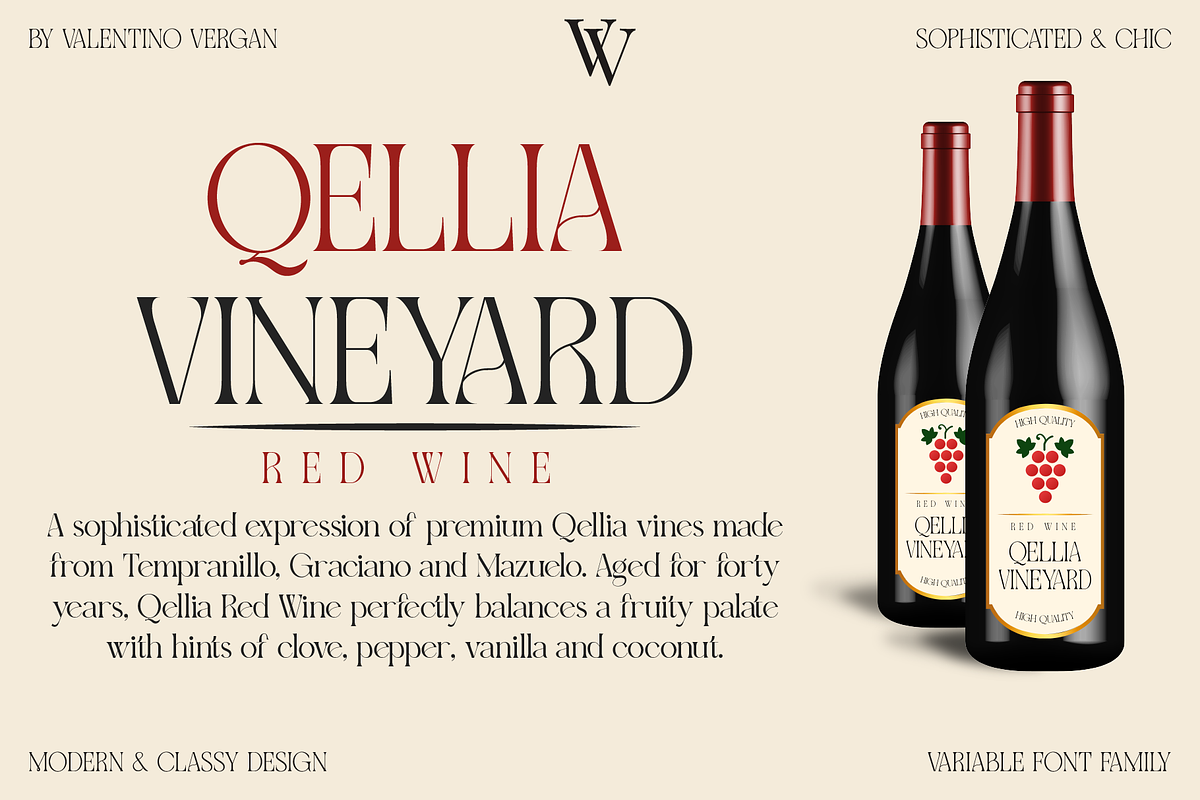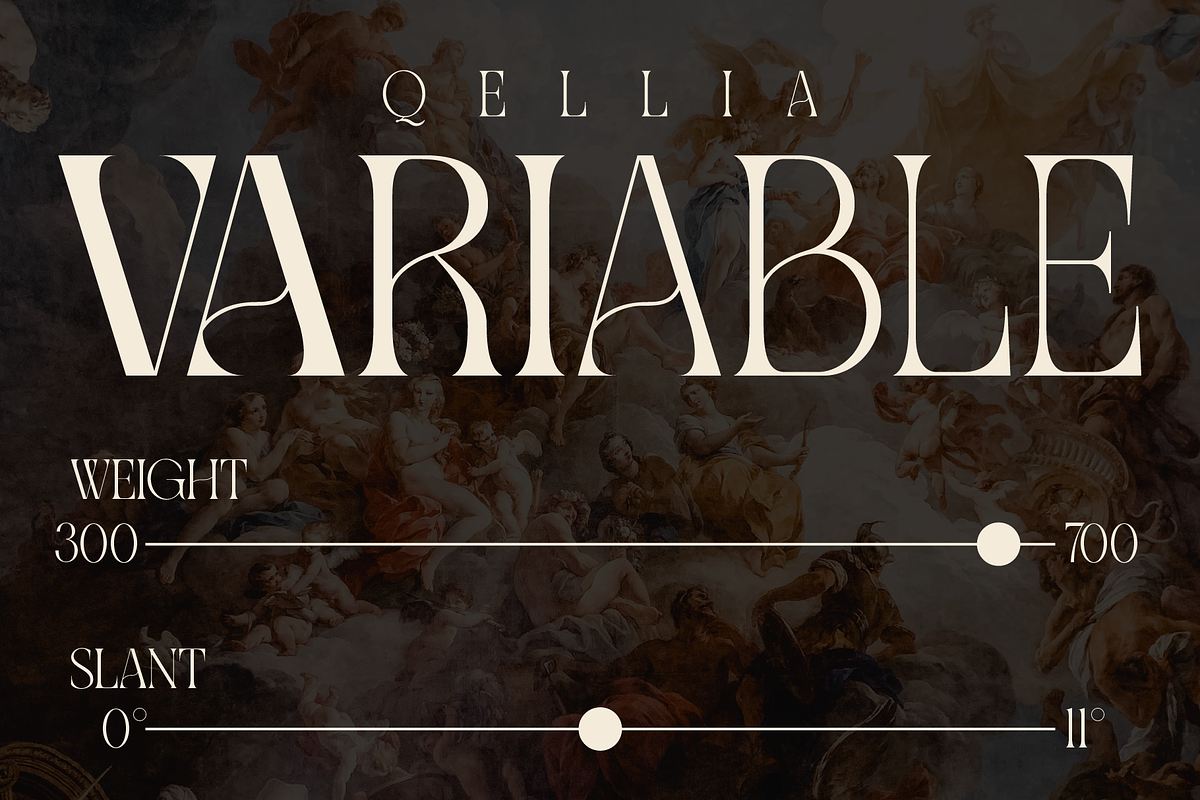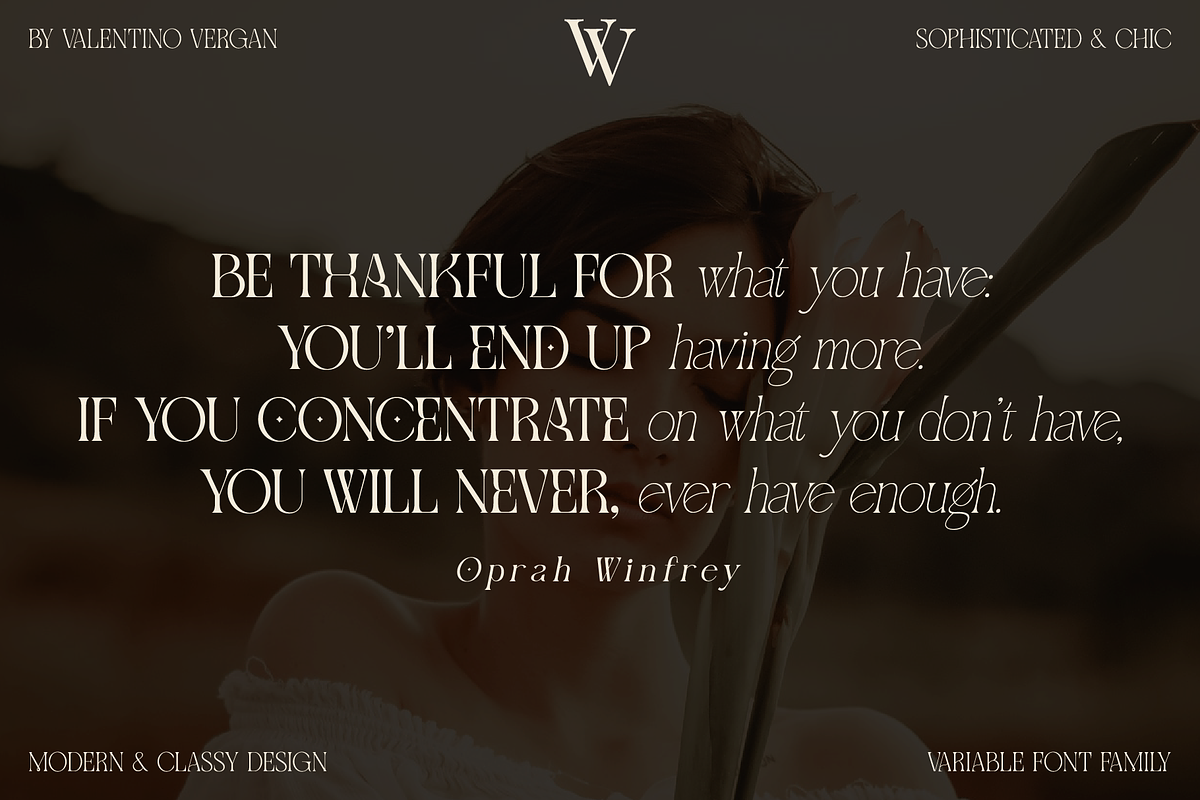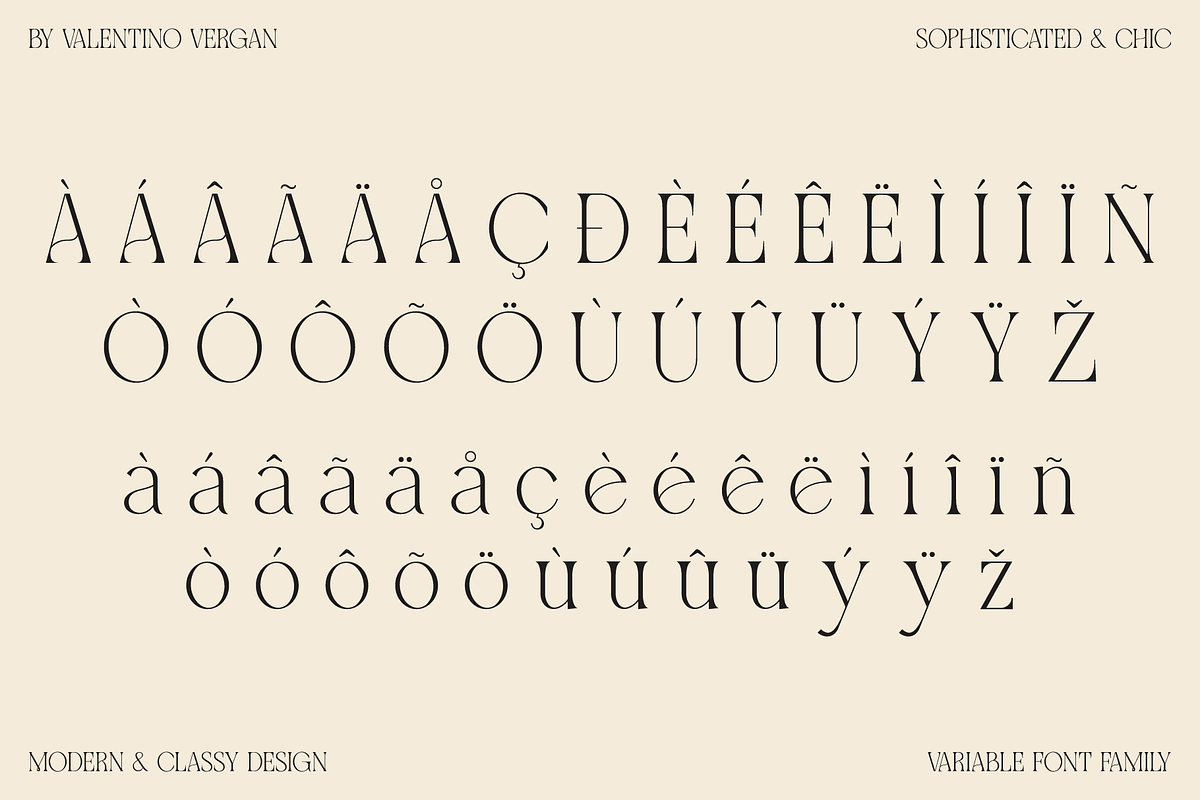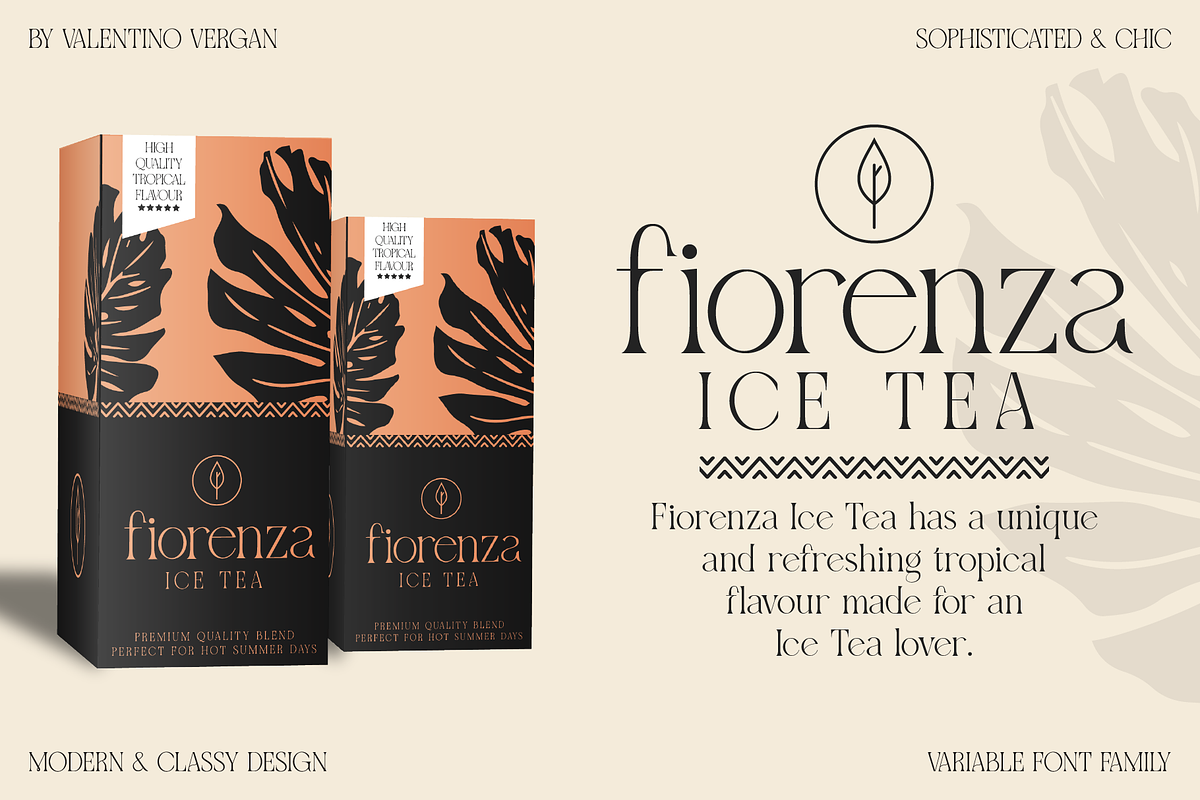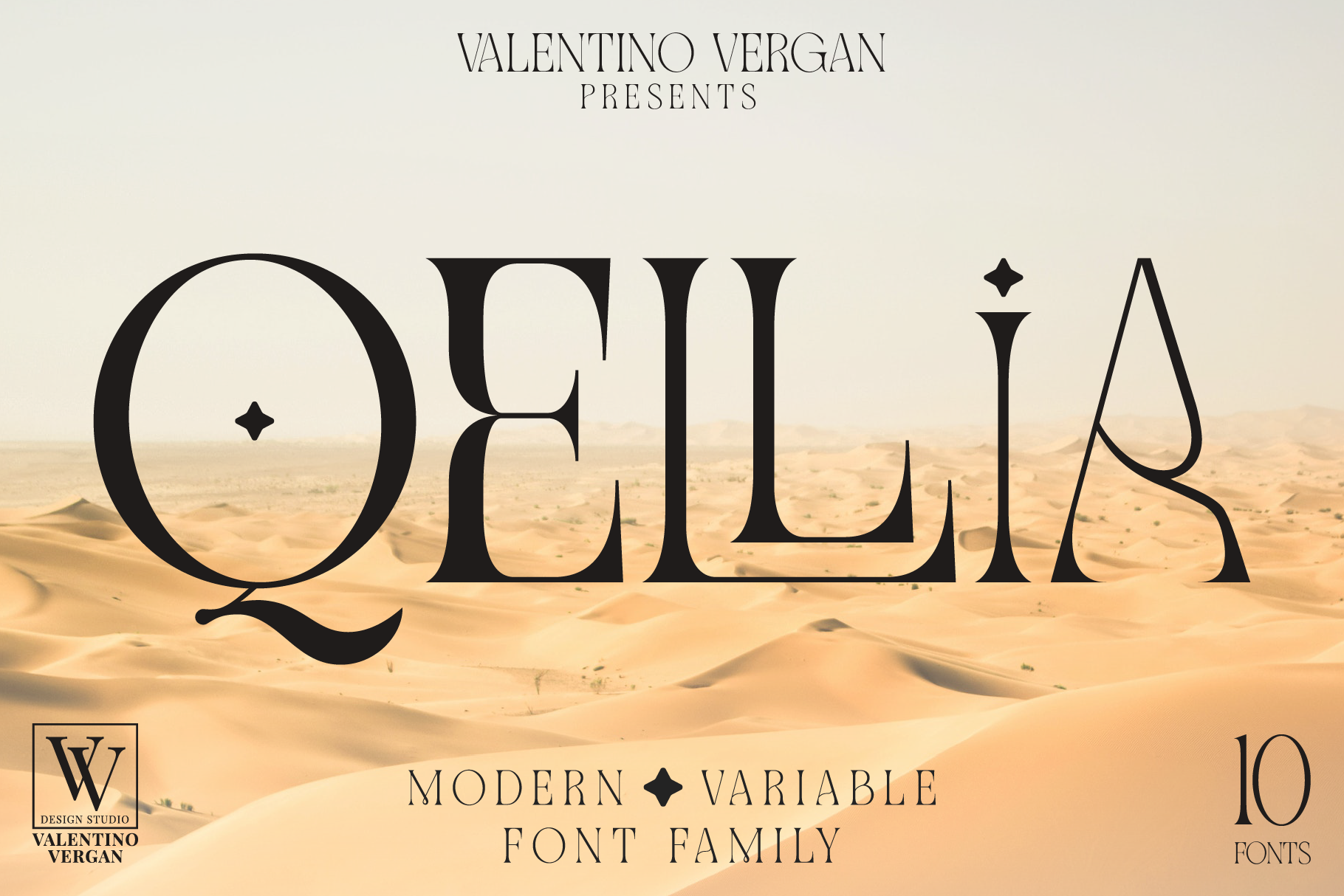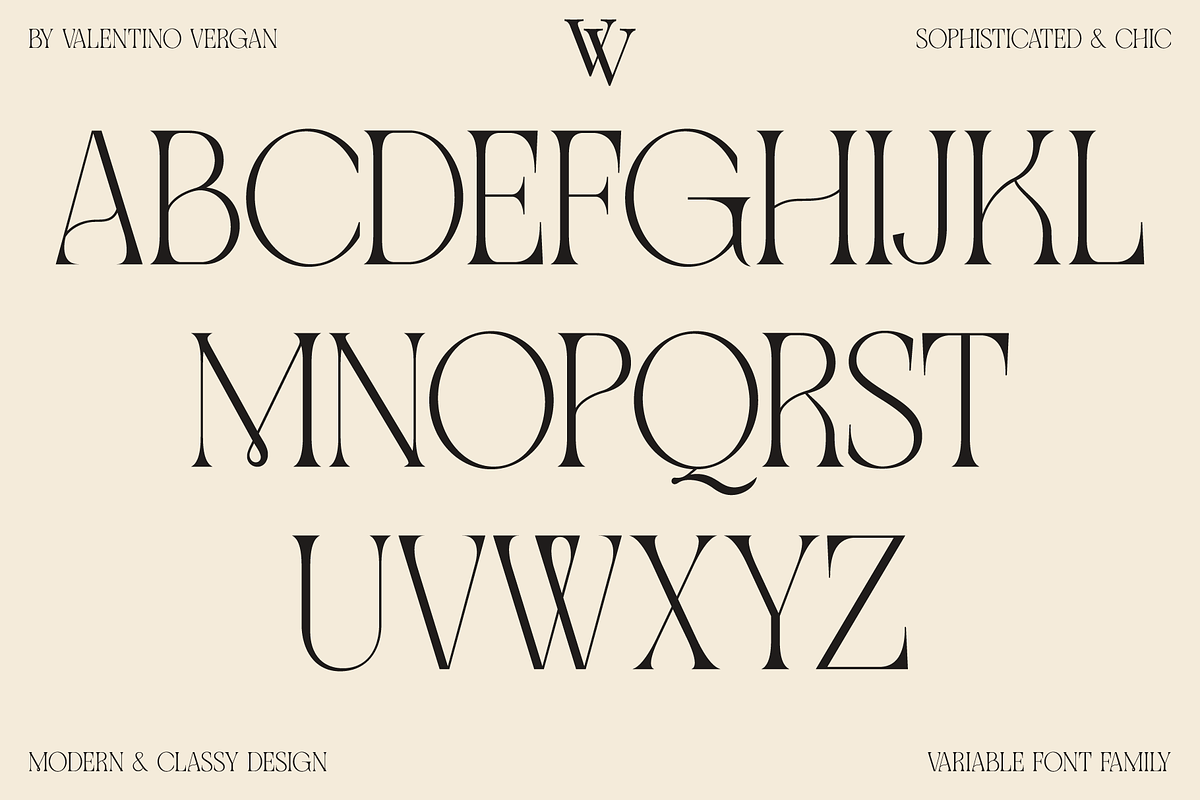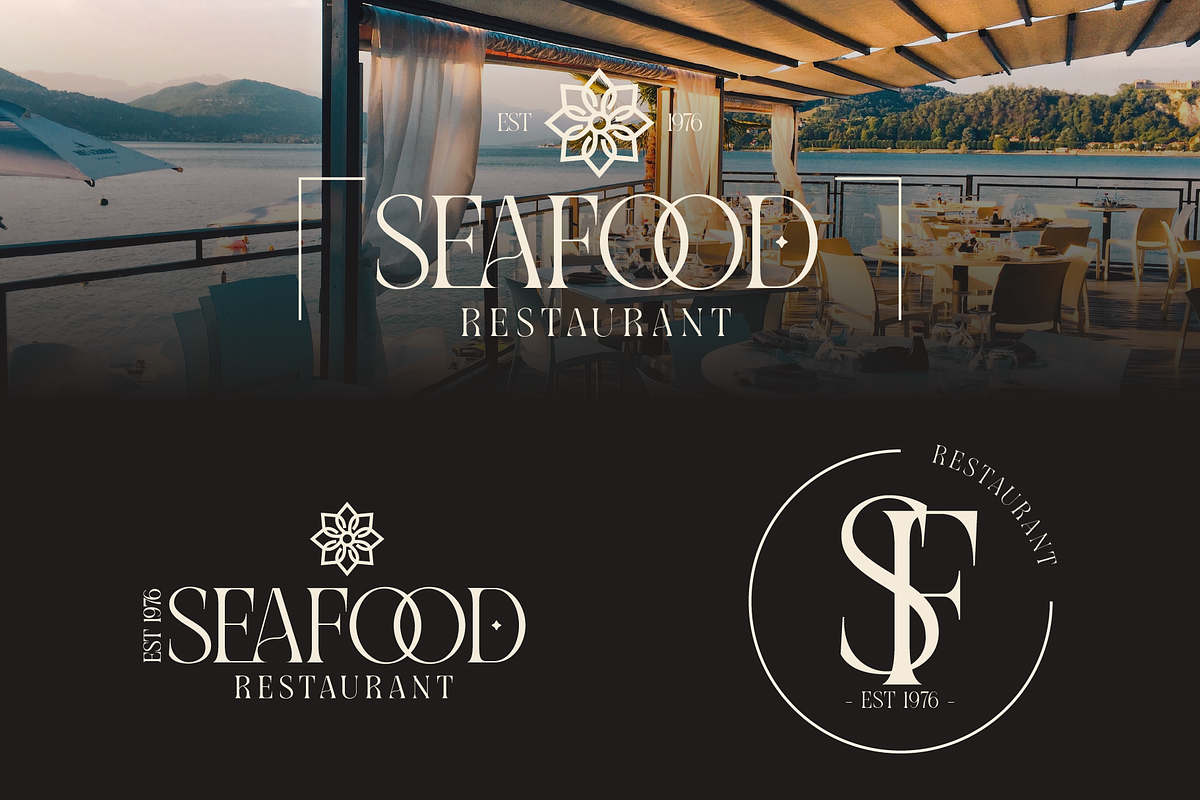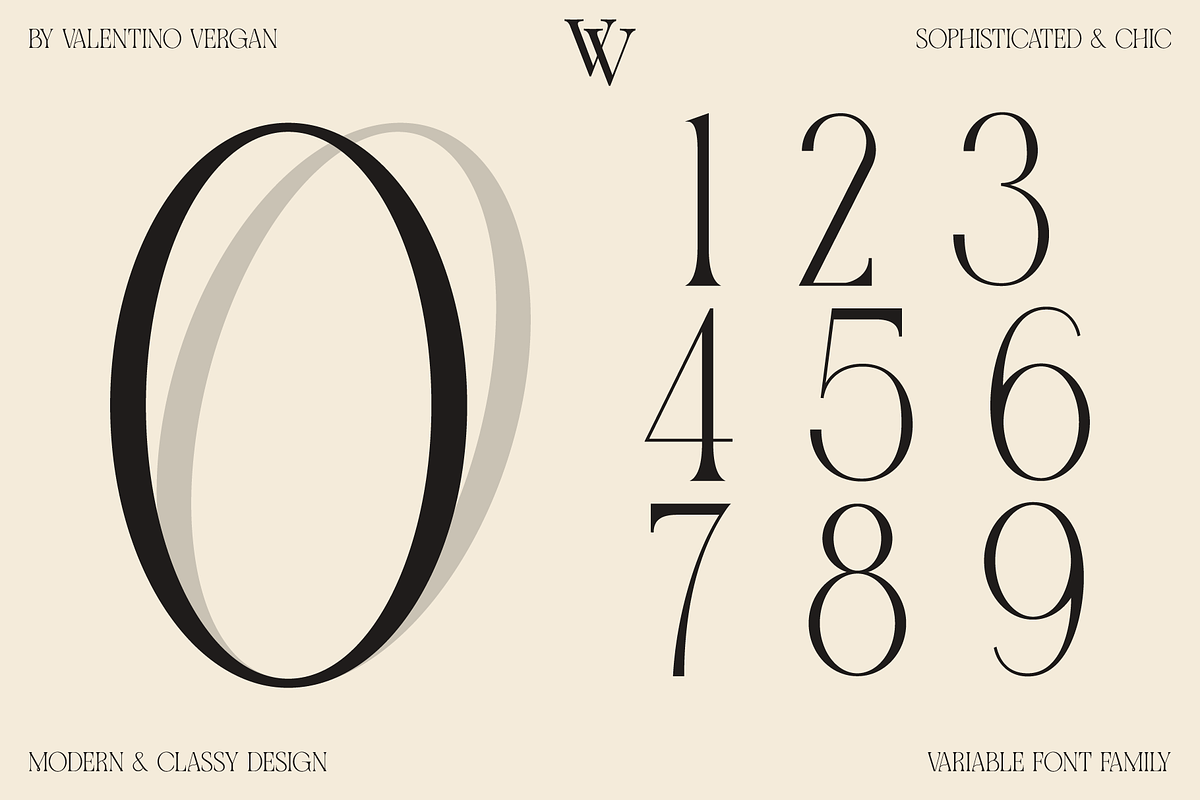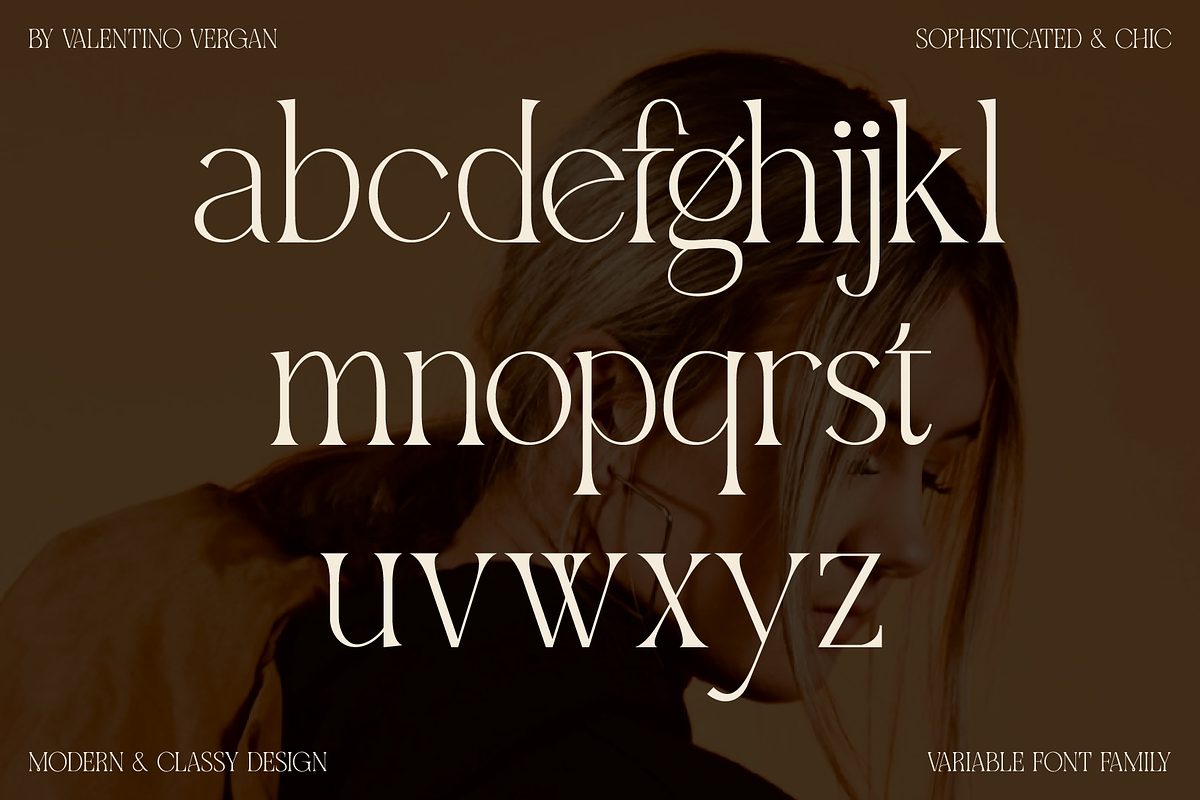
Qellia - Variable Font Family
Qellia is a beautifully refined variable serif font family that blends classic elegance with a modern sensibility. With its high contrast strokes, graceful curves, and crisp serifs, Qellia brings sophistication to any project—while its variable font capabilities offer the freedom to fine-tune weight and style to perfection.
Designed for designers, brands, and creatives who crave both versatility and beauty, Qellia is a true workhorse for editorial design, fashion branding, luxury packaging, and standout digital experiences.
Whether you’re building a high-end magazine layout or crafting a premium visual identity, Qellia delivers typographic expression with style and precision.
- Qellia Light
- Qellia Light Oblique
- Qellia Regular
- Qellia Oblique
- Qellia Medium
- Qellia Medium Oblique
- Qellia SemiBold
- Qellia SemiBold Oblique
- Qellia Bold
- Qellia Bold Oblique
- Qellia Variable
QELLIA INCLUDES A FULL SET OF:
- Uppercase and lowercase letters.
- Numbers.
- Punctuation.
- Ligatures.
- Alternate characters.
- Multilingual Symbols.
Timeless. Elegant. Infinitely flexible. Qellia is the serif you’ve been waiting for.